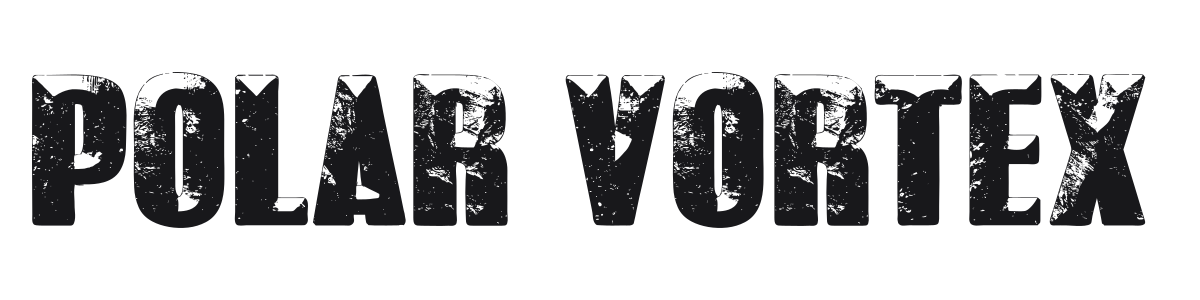
Polar Vortex
Polar Vortex is a bold, wide distressed sans-serif built on blocky grotesque proportions and saturated with cracked, frost-bitten texture throughout. The erosion is heavy and consistent, giving every character a raw, battle-worn quality that reads as cold, intense, and unpolished. It works at large sizes where the textural detail can breathe.